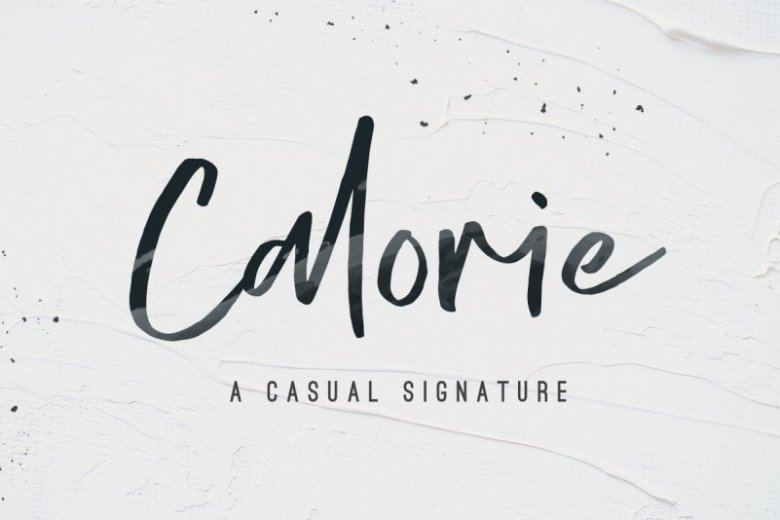
Calorie Script Font
Hi Designer! A new casual signature font. This font made with simple and elegant hand writing will create stunning signature style. Introducing Calorie Script Font. It is designed and shared by dharmas. Calorie Font is a rustic, textured script that works great for logos, branding, quotes, social media, and even lettered wrapping paper!